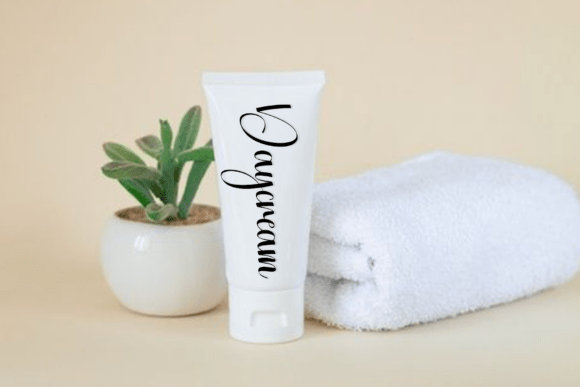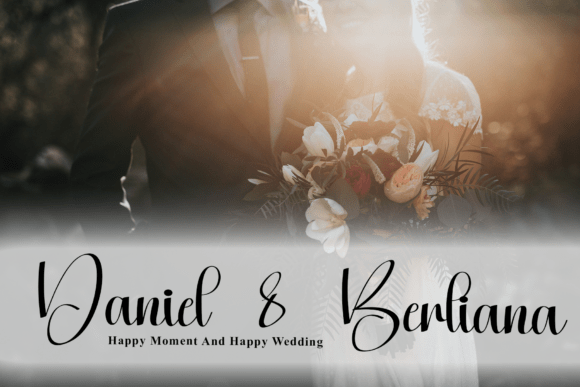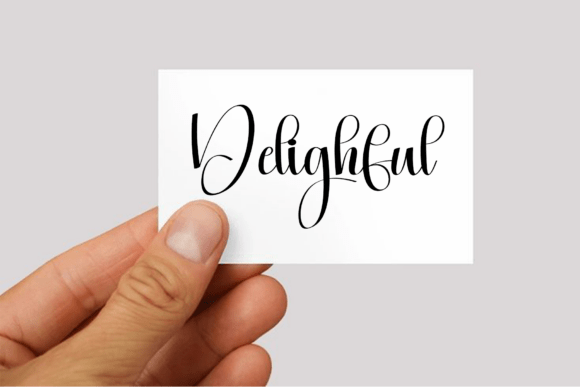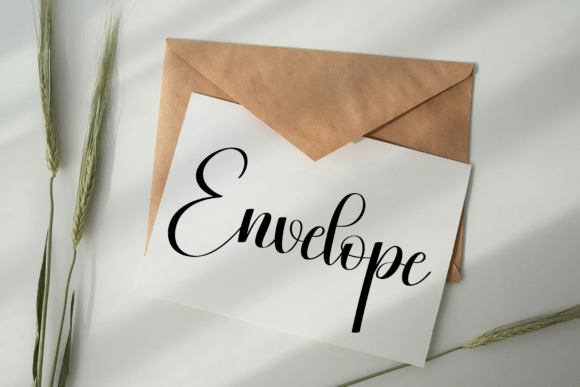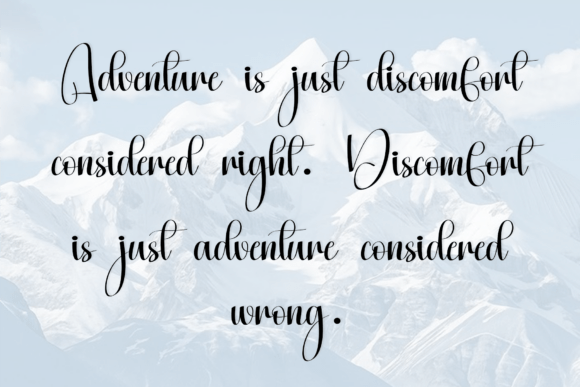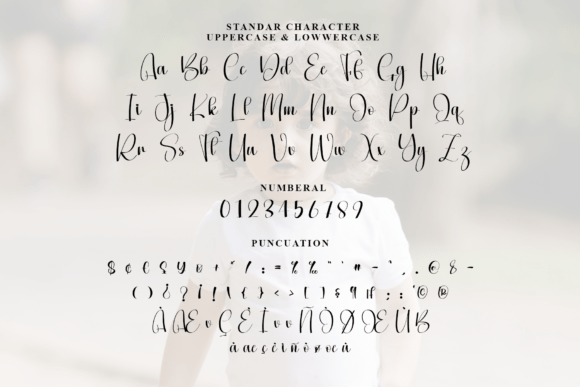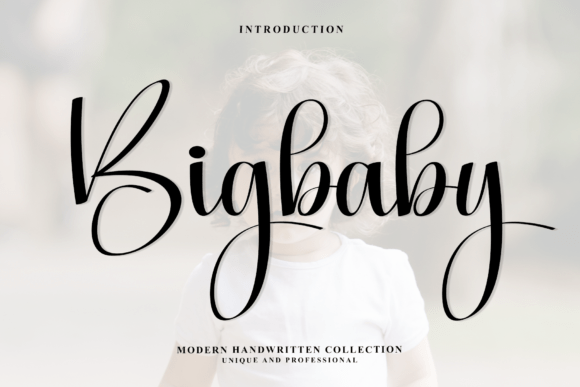
Introducing Bigbaby Font: The Epitome of Elegance and Sophistication
In the realm of typography, few fonts manage to convey the essence of luxury and sophistication as effortlessly as Bigbaby Font. This elegant and fluid handwritten script font has been meticulously crafted to embody the characteristics of a modern, high-end typeface, making it an ideal choice for designers and crafters seeking to elevate their projects.
The Distinctive Features of Bigbaby Font
Bigbaby Font boasts an array of distinctive features that set it apart from other script fonts. Its high-contrast strokes, sweeping loops, and fine, tapering terminals collectively contribute to a rhythmic and natural handwritten flow. The expansive horizontal presence of this font, coupled with the delicate connections between characters, results in a high-end, personalized aesthetic that is sure to captivate audiences.
Design Elements and Characteristics
- Graceful, High-Contrast Strokes: The high-contrast strokes in Bigbaby Font lend it a dramatic and elegant appearance, perfect for projects that demand a touch of sophistication.
- Sweeping Loops and Fine Terminals: The sweeping loops and fine, tapering terminals enhance the font’s fluidity and natural handwritten feel, making it suitable for a variety of creative applications.
- Expansive Horizontal Presence: The font’s expansive horizontal presence ensures that it commands attention without overwhelming the senses, making it ideal for titles, headings, and other prominent text elements.
- Delicate Connections: The delicate connections between characters in Bigbaby Font contribute to its high-end, personalized aesthetic, making it perfect for luxury branding and editorial projects.
Ideal Applications for Bigbaby Font
Given its elegant and sophisticated nature, Bigbaby Font is perfectly suited for a range of applications, including:
- Luxury Wedding Stationery: Add a touch of elegance to wedding invitations, save-the-date cards, and other stationery with Bigbaby Font.
- Intimate Event Branding: Create bespoke branding for intimate events, such as anniversaries, baby showers, and birthday parties, with this beautiful script font.
- High-End Editorial Signatures: Use Bigbaby Font to add a sophisticated touch to editorial signatures, blog headers, and other high-end content.
- Sophisticated Lifestyle Photography Overlays: Elevate lifestyle photography with elegant overlays featuring Bigbaby Font, perfect for adding captions or quotes.
Why Choose Bigbaby Font?
In a world where typography plays a crucial role in communicating a brand’s message, Bigbaby Font stands out as a versatile and elegant solution. Here are a few reasons why designers and crafters should consider adding Bigbaby Font to their arsenal:
- Unique and Memorable: Bigbaby Font’s distinctive features ensure that it leaves a lasting impression on audiences, making it perfect for projects that demand to be remembered.
- Versatile: From luxury wedding stationery to high-end editorial signatures, Bigbaby Font’s versatility makes it suitable for a wide range of applications.
- Elegant and Sophisticated: This font’s elegant and sophisticated nature ensures that it elevates any project, adding a touch of luxury and refinement.
Bigbaby Font is a masterpiece of modern typography, offering an elegant and fluid handwritten script that captures the essence of sophistication and luxury. Its unique features, versatility, and high-end aesthetic make it an ideal choice for designers and crafters seeking to create stunning projects. Whether you’re working on luxury wedding stationery, intimate event branding, high-end editorial signatures, or sophisticated lifestyle photography overlays, Bigbaby Font is sure to exceed your expectations.